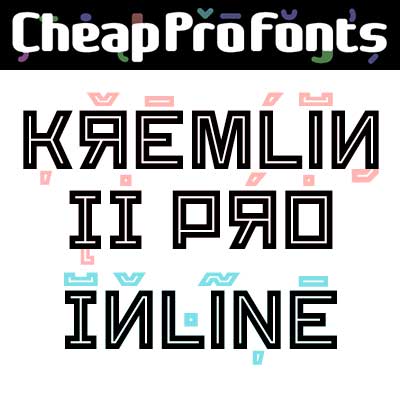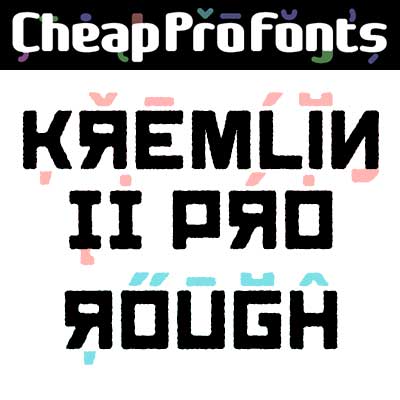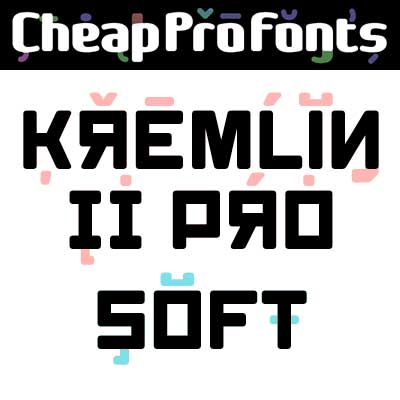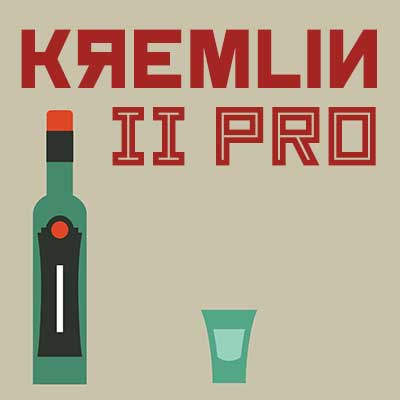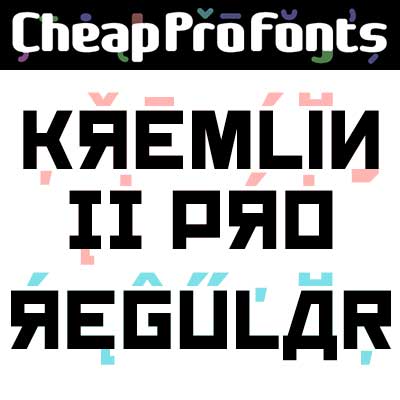
Kremlin II Pro
Kremlin II Pro by Vic Fieger
Vic Fieger
Most uppercase letters of this constructivist font are made to look like cyrillic letters, so by carefully interspersing those you can set your text and headlines with it and make it look russian!
To a native russian this of course looks very silly indeed, so to make amends for toying with their letters I have also included a full proper and genuine cyrillic character set.
So this is the first CheapProFonts font to support languages using the cyrillic script in addition to the usual 65 latin-based languages.
Vic Fieger says: "This font was designed with Russian constructivist artwork in mind, particularly works by El Lissitski. This new version is essentially the same as the original, but with a few of the rough edges rounded off."
Kremlin II Pro is a professionally reworked font that contains an extended character set for setting text in 65 languages requiring more than the basic A-Z!
Kremlin II Pro Regular
Kremlin II Pro Regular by Vic Fieger
Kremlin II Pro Inline
Kremlin II Pro Inline by Vic Fieger
Kremlin II Pro Rough
Kremlin II Pro Rough by Vic Fieger
Kremlin II Pro Soft
Kremlin II Pro Soft by Vic Fieger